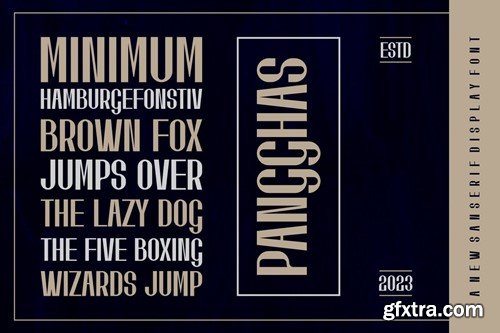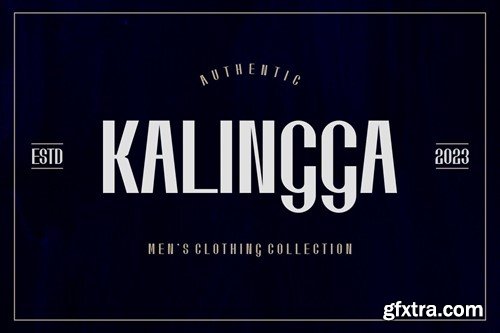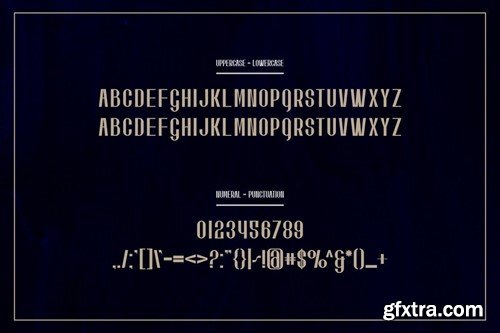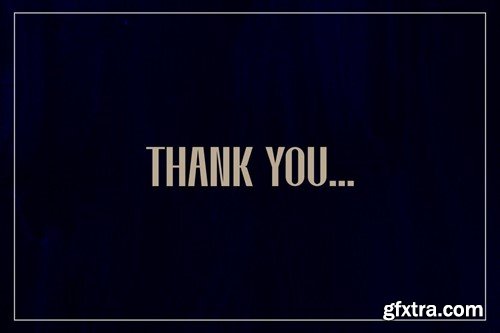
Pangghas Font AEGAQ2B
Pangghas Font
Introducing our new product Pangghas Font - Modern Font is a bold and authentic display font. The font is suitable for any branding project like logo, esport, and many more. outstanding in a wide range of contexts. availlable